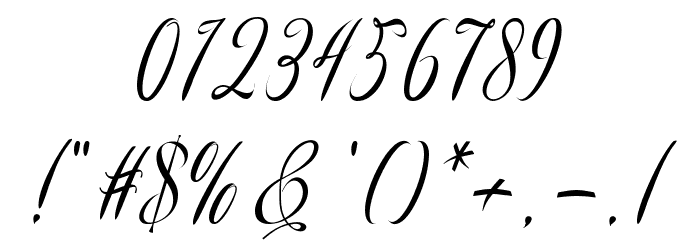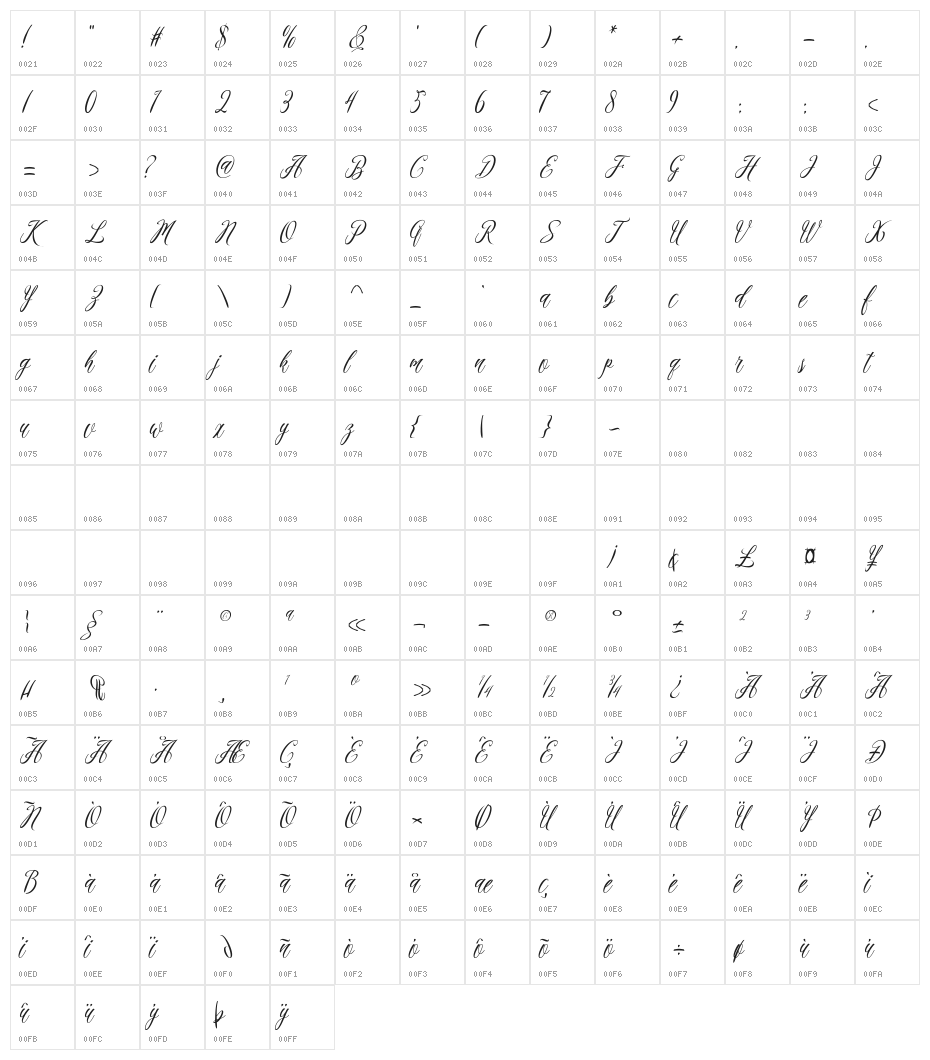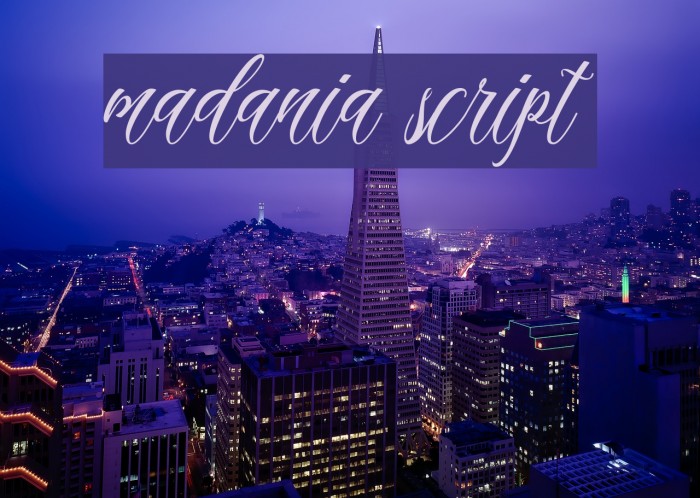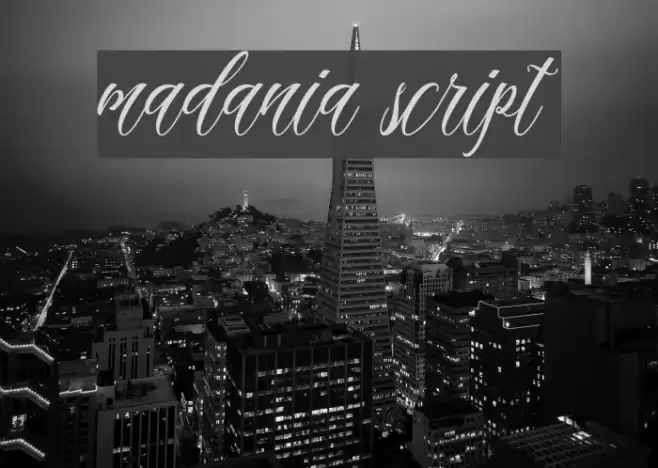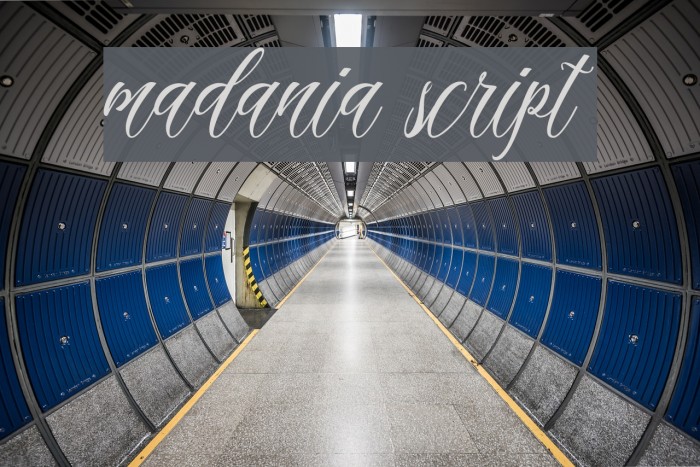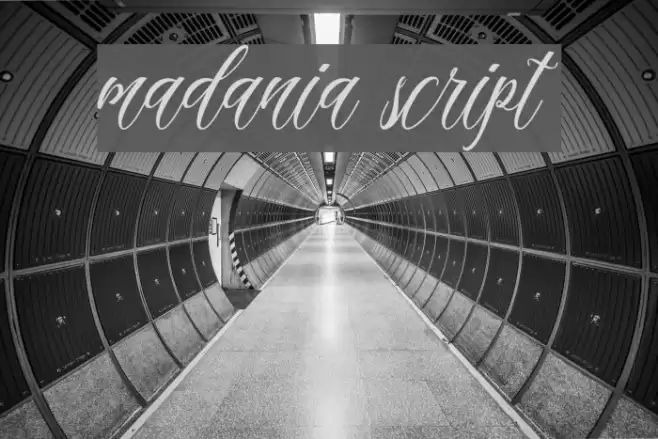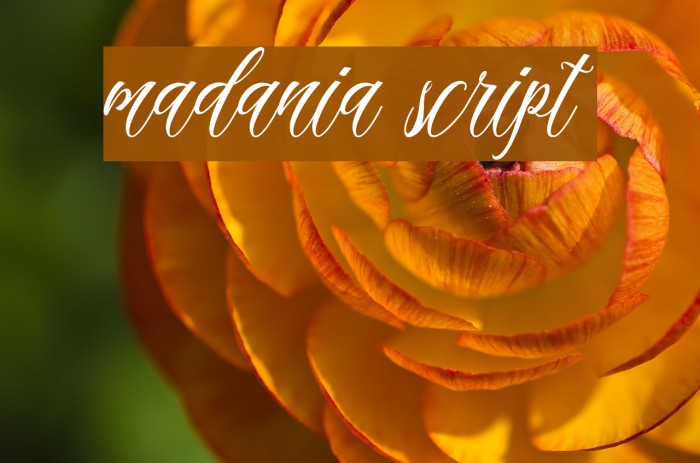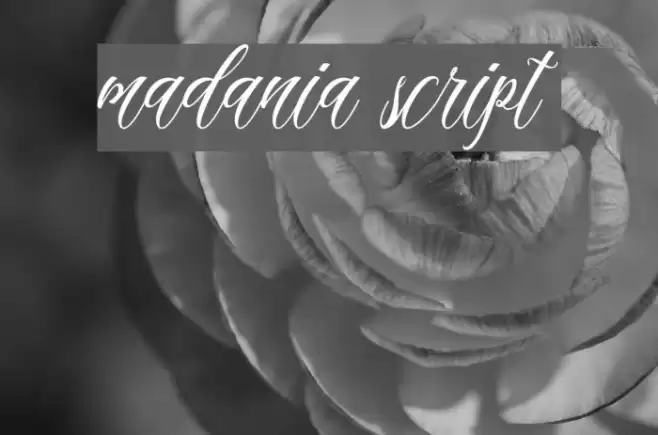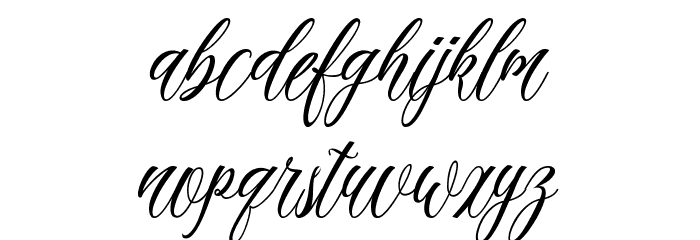
madania script Font
madania script Description
This elegant script font features a flowing, cursive style with smooth, connected strokes that emulate the fluidity of handwriting. The uppercase letters are characterized by their tall, graceful loops and swashes, while the lowercase letters maintain a consistent rhythm with gentle curves and delicate flourishes. The numerals and special characters are designed to complement the overall aesthetic, offering a cohesive look across all elements. This font exudes a sense of sophistication and charm, making it ideal for projects that require a personal touch.